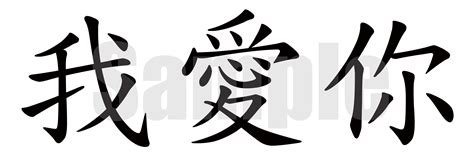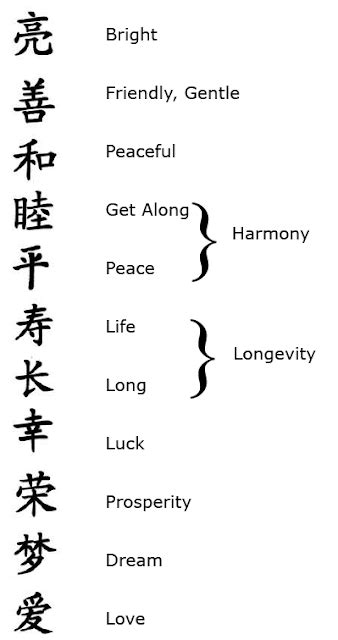
All fonts are categorized and can be saved for quick reference and comparison. This font is indeed a class apart furthermore, several people out there also wish to get a tattoo in font styles that seem to be different and exotic to them. They can be seen everywhere. People, for this reason, love. It's really hard to look for calligraphic chinese fonts that's free for commercial use especially since i can't read chinese.
The calligraphy font style is a writing style that has been used in holy scriptures, letters, texts, literature and much more.
A free stylized western font would be google font dancing script. Hanyi senty tang type (汉仪新蒂唐朝体) is a font that was designed with a based on mashed up chinese tang dynasty calligraphy style and wood carving type style. Chinese calligraphy is the art of creating aesthetically pleasing writing or tangible representations of the chinese languages. Do not miss our most special fonts for your tattoos, drawings, prints, murals. Search from a wide range of typography fonts. Welcome to chinesefontdesign.com, you can download more than 1000+ chinese fonts here for free. Words of wisdom, quotes, custom text, and more can be included with your tattoo in beautiful, custom lettering. At the same time, we also provide more than 100000+ chinese font logo design.
A free stylized western font would be google font dancing script. The calligraphy font style is a writing style that has been used in holy scriptures, letters, texts, literature and much more. Ma shan zheng is a free calligraphic chinese font that is set in a simplified chinese character. Trendy crowds use chinese characters or fancy asian words for body decoration. Write your name in chinese characters. Words of wisdom, quotes, custom text, and more can be included with your tattoo in beautiful, custom lettering. Do not miss our most special fonts for your tattoos, drawings, prints, murals. Search from a wide range of typography fonts. Download 10,000 fonts with one click for $19.95. Download it free at fontriver.com! Create your own chinese calligraphy with a character, a word, a sentence or any text. Tattoos letters and fonts symbols & emoji. People, for this reason, love.
Enter your chinese text here and our tool will create a calligraphy for you. Please, share link to our service, to activate all fonts. Download it free at fontriver.com! How to vector hand lettering from procreate in illustrator | the calligraphy hub. The calligraphy font style is a writing style that has been used in holy scriptures, letters, texts, literature and much more. Tattoo writing fonts are big business, and there's a font available for nearly every personality out there! Tattoos letters and fonts symbols & emoji. Write your name in chinese characters.
Tattoo writing fonts are big business, and there's a font available for nearly every personality out there!
Tattoo writing fonts are big business, and there's a font available for nearly every personality out there! Words of wisdom, quotes, custom text, and more can be included with your tattoo in beautiful, custom lettering. At the same time, we also provide more than 100000+ chinese font logo design. Please, share link to our service, to activate all fonts. It is very distinct font that contains some elements of chinese calligraphy, while still being english letterforms. The best selection of tattoo fonts for windows and macintosh. They can be seen everywhere. How to vector hand lettering from procreate in illustrator | the calligraphy hub. Dingbats > varioustribal tattoo font.ttf is available to download for windows & mac os x. Welcome to chinesefontdesign.com, you can download more than 1000+ chinese fonts here for free. It's really hard to look for calligraphic chinese fonts that's free for commercial use especially since i can't read chinese. The best aztec tattoo artist, tattoo fonts calligraphy alphabet, photos editor free download software. Chinese calligraphy can be challenging to learn, but this guide will help you understand its history and offer resources for creating your own style.